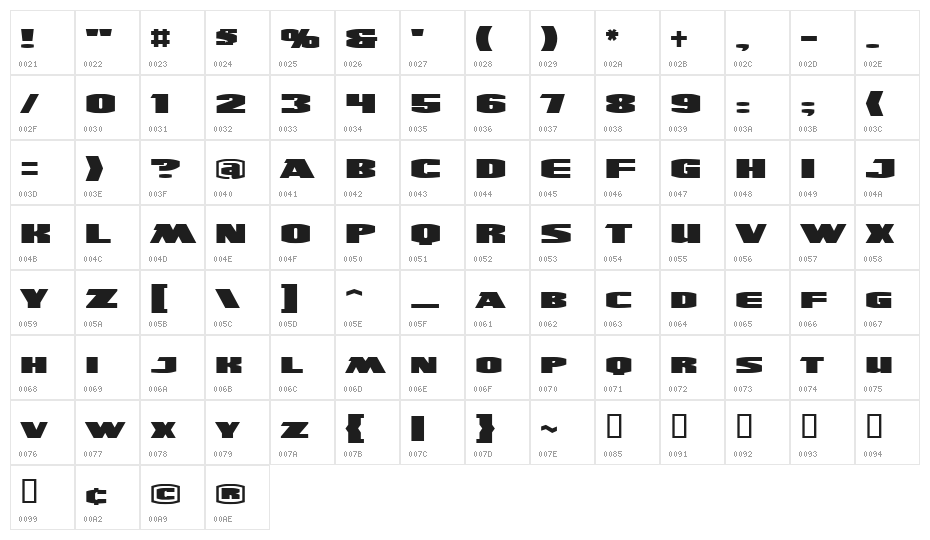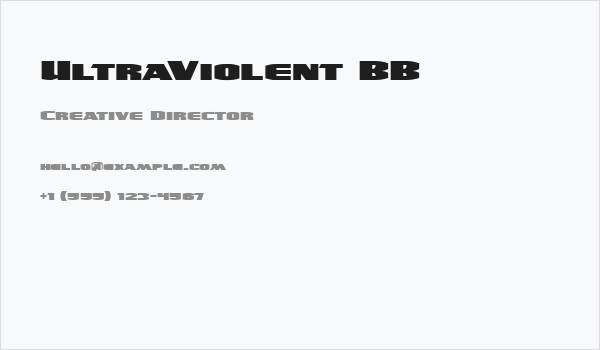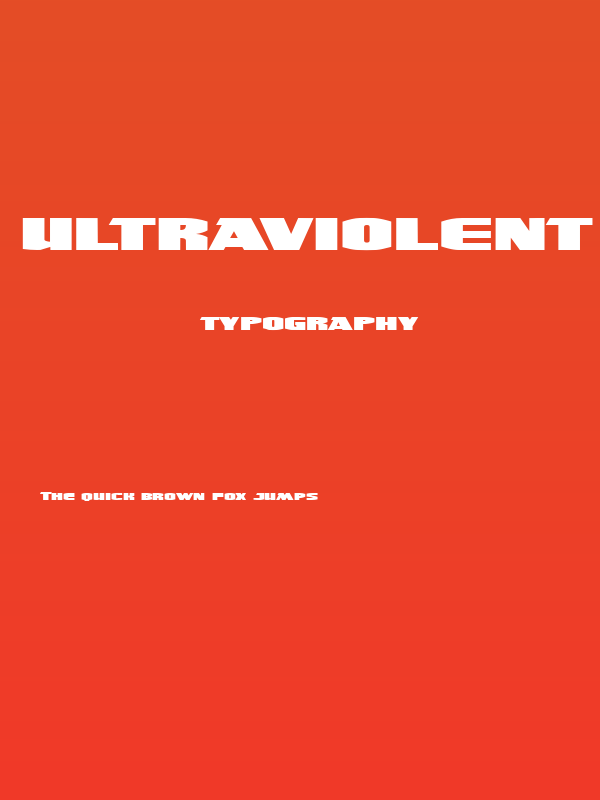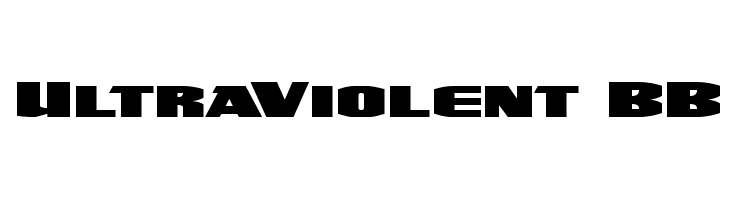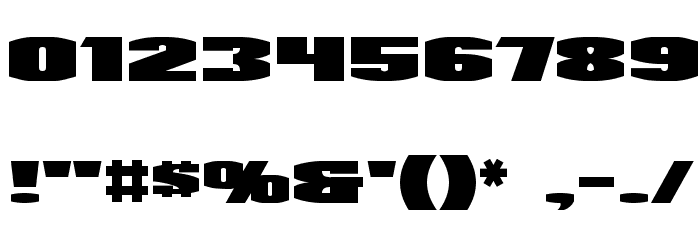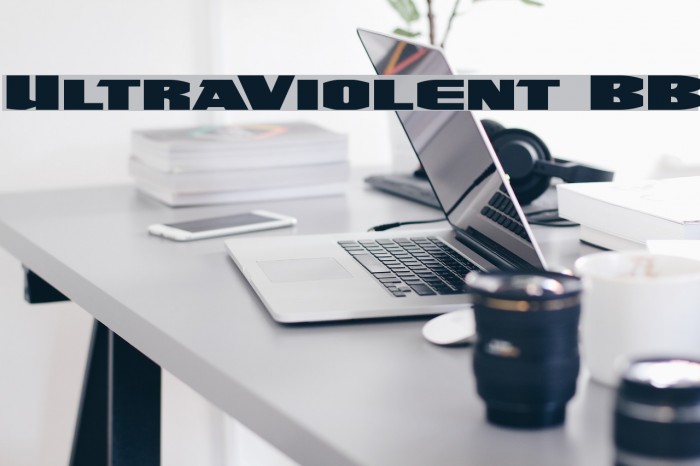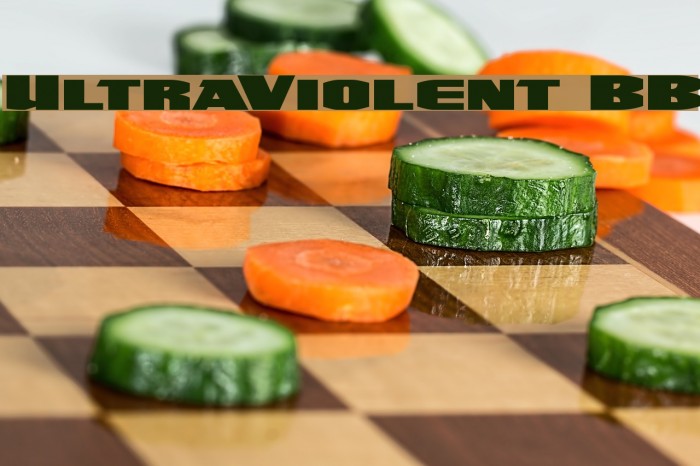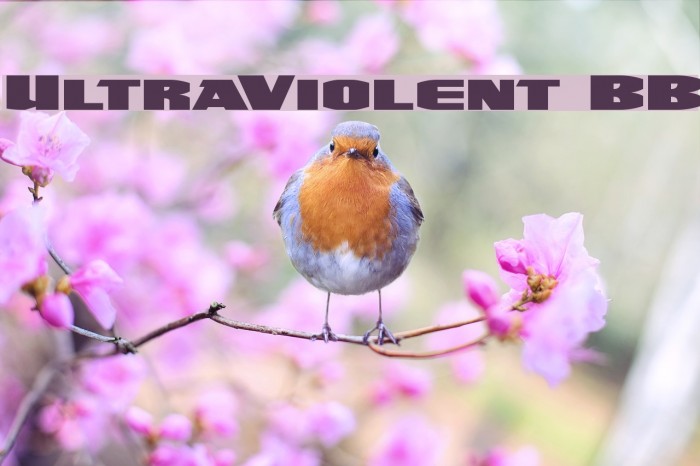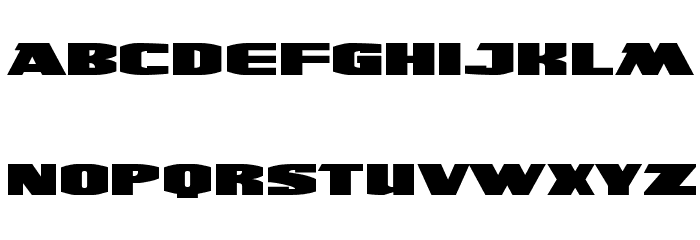
UltraViolent BB Font
UltraViolent BB Description
This font exhibits a bold and aggressive style with sharp, angular edges and a strong presence. The uppercase letters are particularly striking, with a wide stance and thick strokes that convey a sense of power and intensity. The lowercase letters maintain the same boldness, ensuring consistency across the typeface. The numerals are equally robust, making them stand out in any design. Special characters are designed to match the overall aesthetic, providing a cohesive look. This font is ideal for projects that require a strong visual impact, such as posters, headlines, and branding materials.
| Proposed Projects | Ideal for posters, headlines, branding, and any design requiring a strong visual impact. |